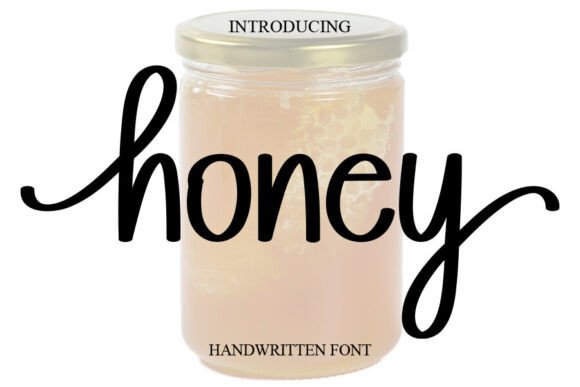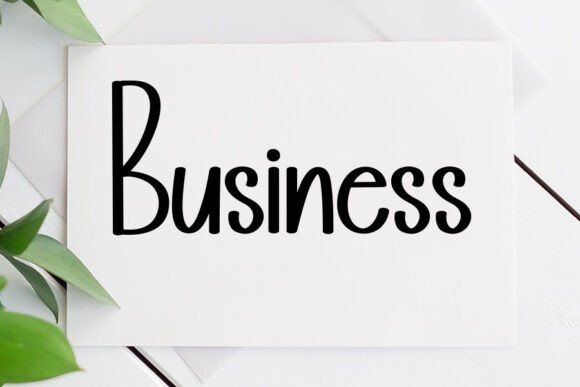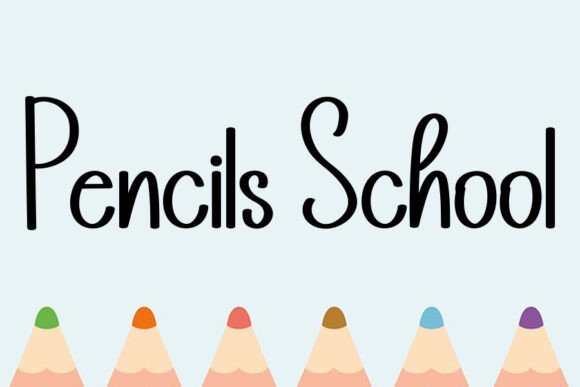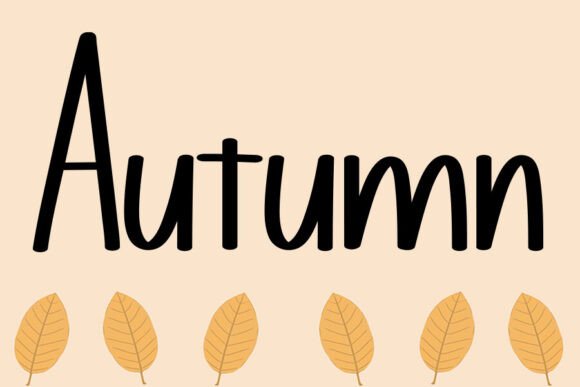
Honey Font: A Sweet Handwritten & Modern Display Font
About the Honey Font
Presenting Honey Font, a unique and stylish typeface that will make your work stand out. Honey is a festive and merry typeface that captures the spirit of the holiday season. With its decorative elements and whimsical flair, it adds a touch of enchantment to your designs. Perfect for greeting cards, gift tags, and holiday-themed projects, this font brings a cheerful and nostalgic ambiance to your words. Let your typography shine with the magic of Beautiful Font!
Honey’s playful, decorative style makes it ideal for headlines, short text blocks on packaging, and festive signage. It excels in projects needing a whimsical touch, such as children’s books, holiday promotions, or branding for sweet treat companies. However, its decorative nature makes it unsuitable for body text or UI elements where readability is paramount. Long paragraphs set in Honey would be difficult to read.
Pairing Honey effectively requires a contrasting typeface to provide balance. A clean sans-serif like Open Sans or a classic serif like Garamond would create a sophisticated contrast, grounding the whimsicality of Honey. For a more playful approach, consider pairing it with a rounded sans-serif like Montserrat.
Honey’s overall personality is undeniably cheerful and nostalgic, lending itself to brands aiming for a friendly, approachable, and slightly retro feel. Its festive energy is best suited for projects that evoke warmth, happiness, and a sense of lighthearted celebration.